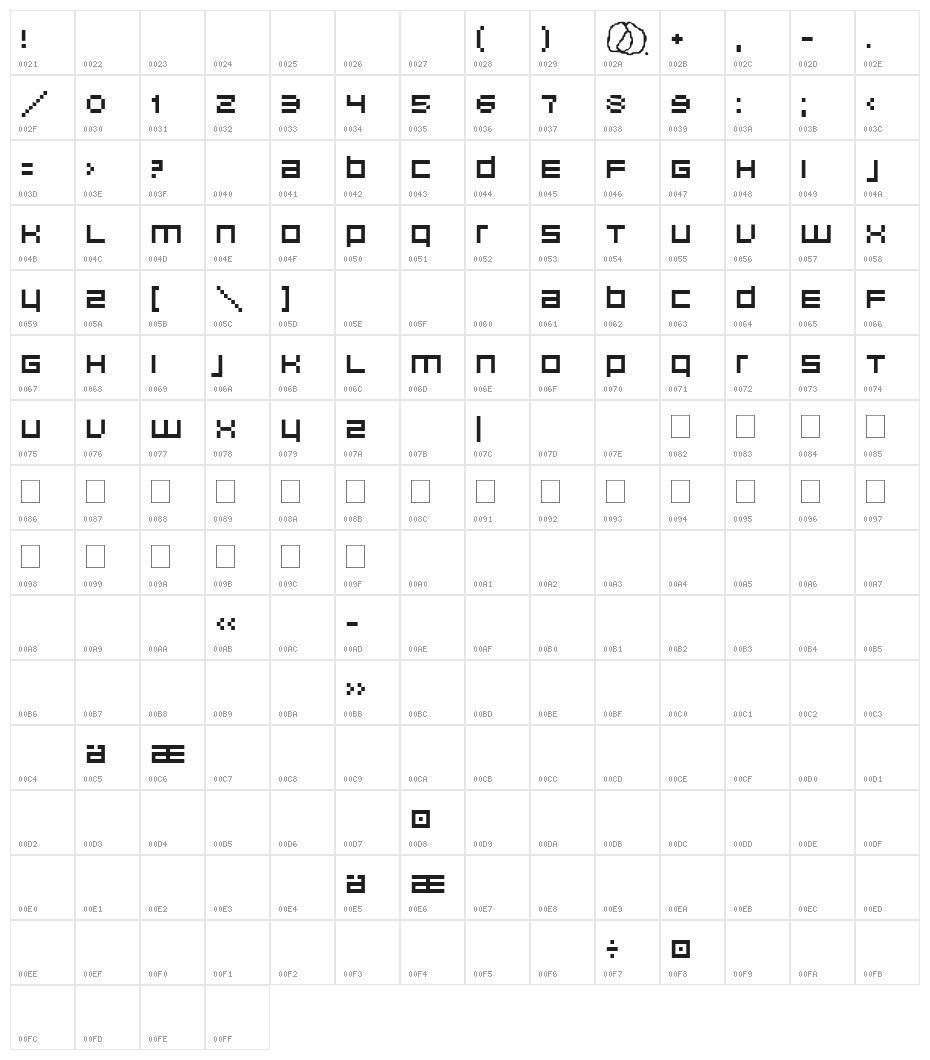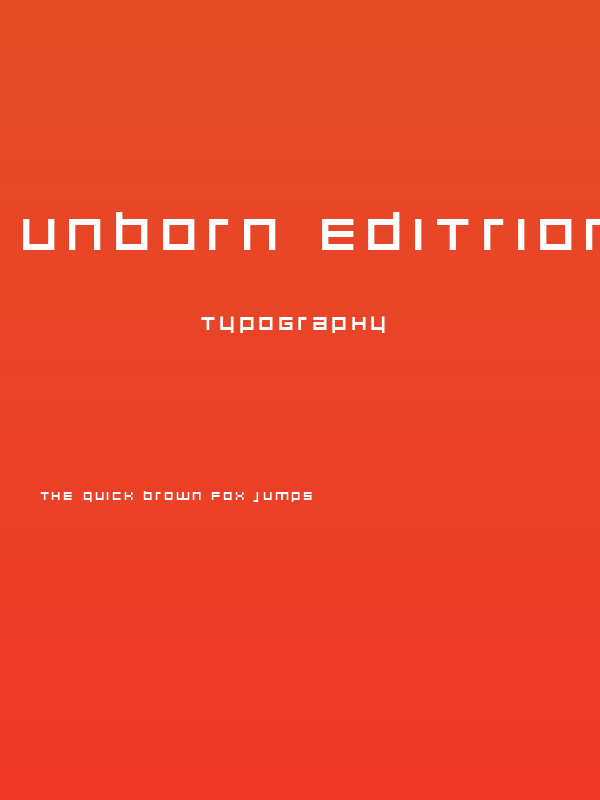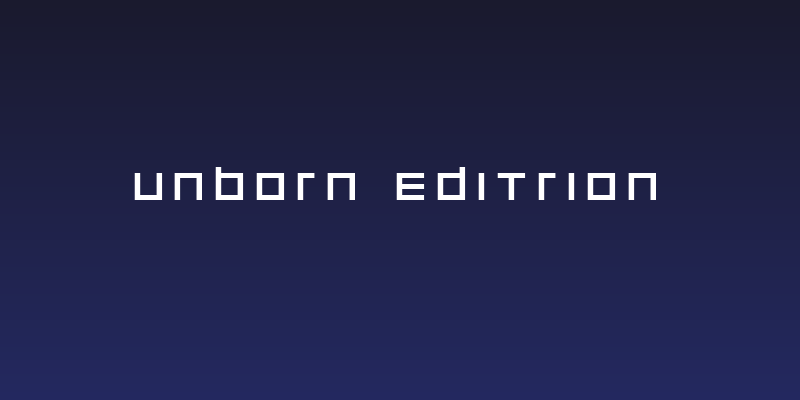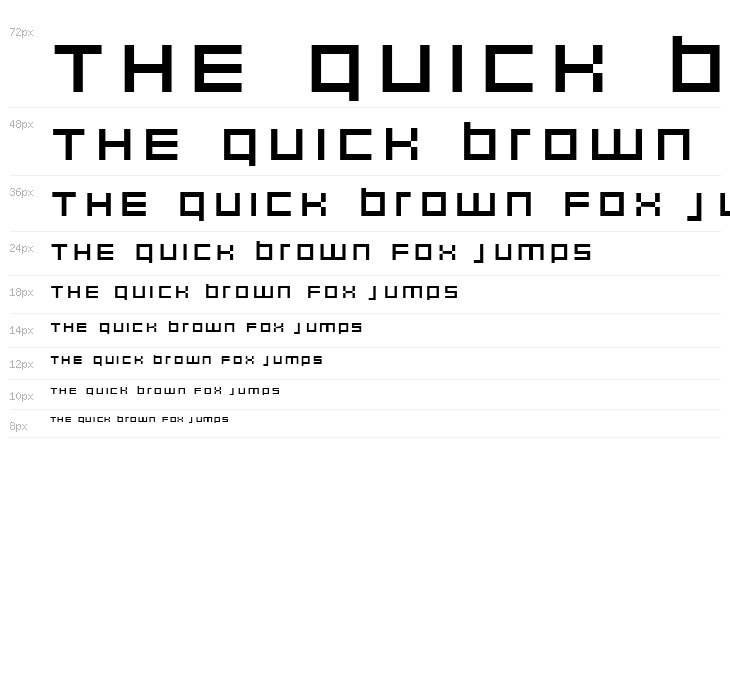
unborn editrion Font
unborn editrion Description
This font features a geometric, blocky design with a modern and digital aesthetic. The characters are constructed with straight lines and right angles, giving it a pixelated appearance reminiscent of early computer graphics. The uniformity in stroke width across all characters contributes to a cohesive and structured look. The uppercase and lowercase letters maintain a consistent height, enhancing readability and uniformity. Numbers and special characters follow the same design principles, ensuring a seamless integration across different text elements. This font's distinct style makes it ideal for projects that require a futuristic or tech-oriented theme.
| Use Case | Headlines, Logos, Digital interfaces |
| Proposed Projects | Ideal for tech-themed designs, video game graphics, digital art projects, and futuristic branding. |